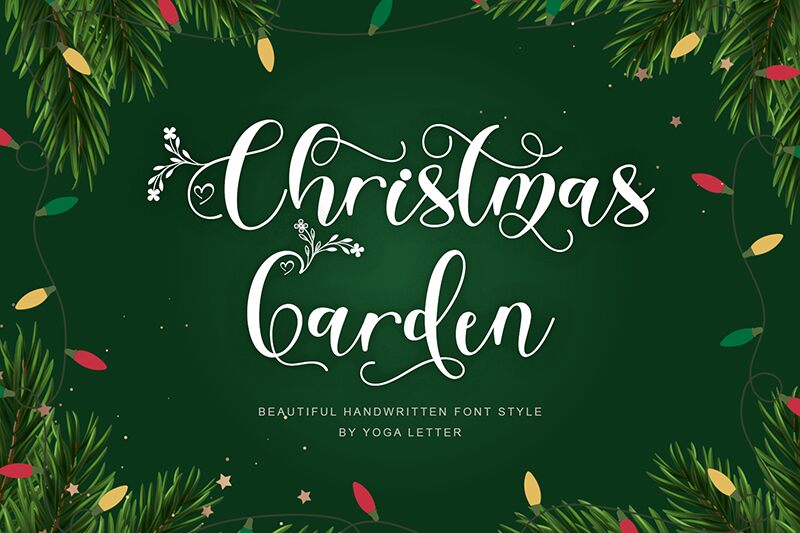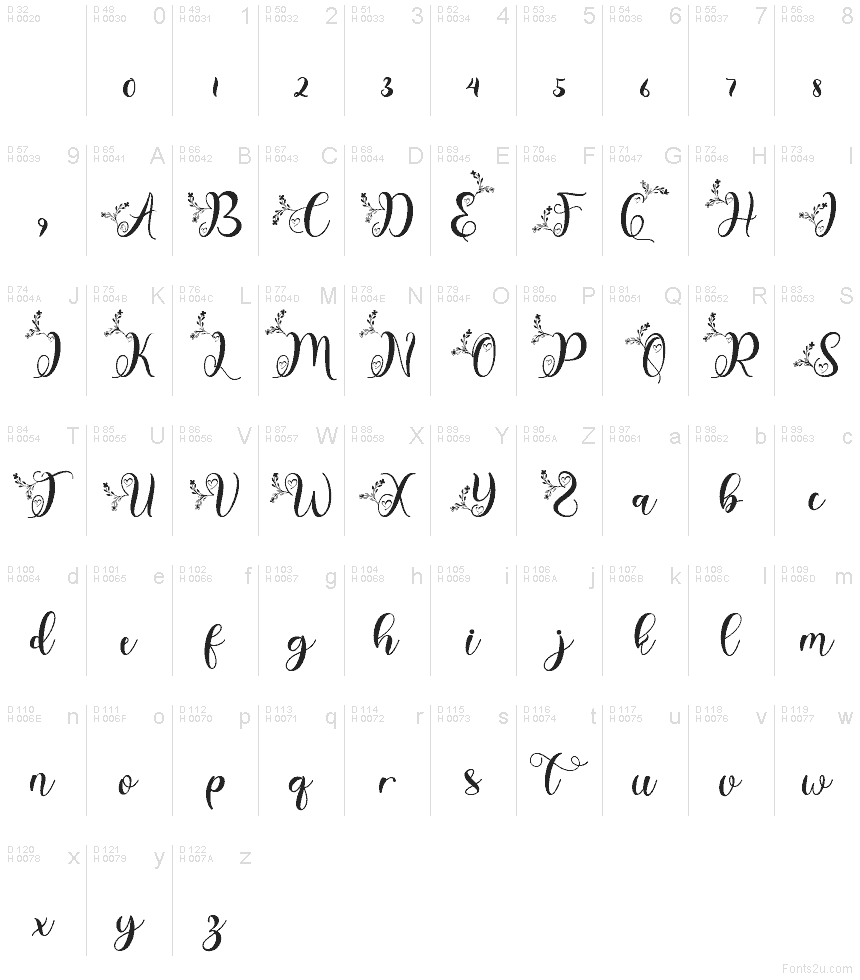
Christmas Garden
Christmas Garden font by Yoga Letter is a free holiday calligraphy typeface that turns every word into a little piece of winter magic. Its inky strokes swoop and curl like ribbon on a wrapped gift, with soft, dancing swashes and tiny botanical flourishes that feel hand-drawn and personal. The letters connect smoothly, giving headlines and names a lush, storybook rhythm that instantly reads “festive” without feeling kitschy.
Using Christmas Garden, this free font shines on Christmas cards, party invitations, gift tags, seasonal logos, social media graphics, and cozy wall prints. The decorative leaves and heart details add just enough sparkle to make names and short phrases stand out, especially at larger sizes. For balance, pair Christmas Garden with a simple sans serif for body text so the script can sing in titles, quotes, and key accents.